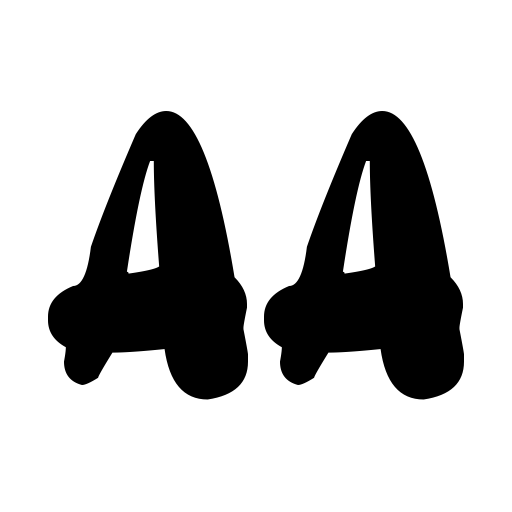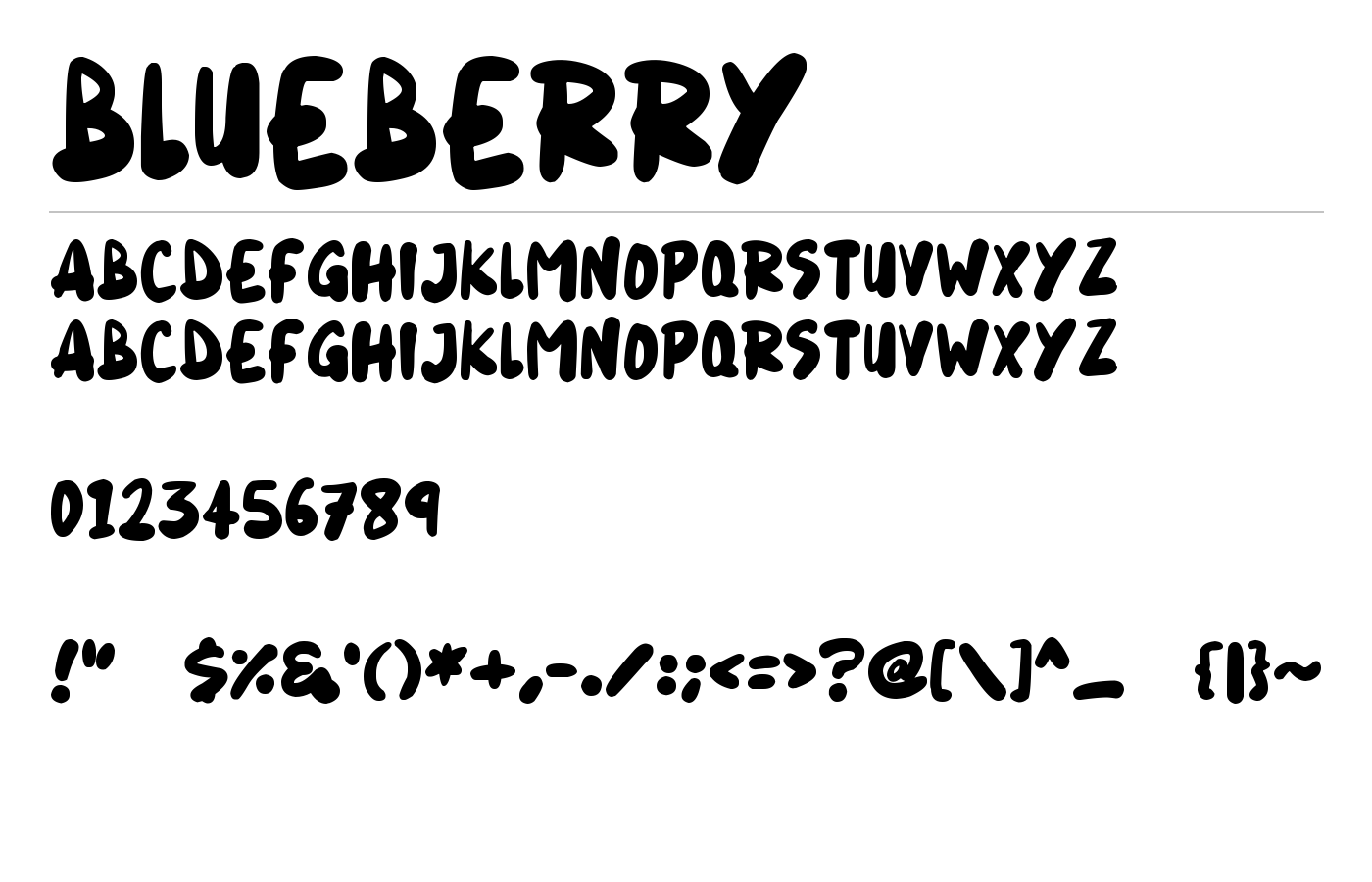
Blueberry is a bold, playful sans serif font with a hand-drawn, casual style that adds warmth and personality to any project. Its rounded, chunky letterforms and lively irregular strokes make it ideal for fun, creative branding, children's materials, and informal headlines where a friendly and approachable feel is desired. This font works best in display settings where its unique charm can shine and capture attention.
Blueberry Font